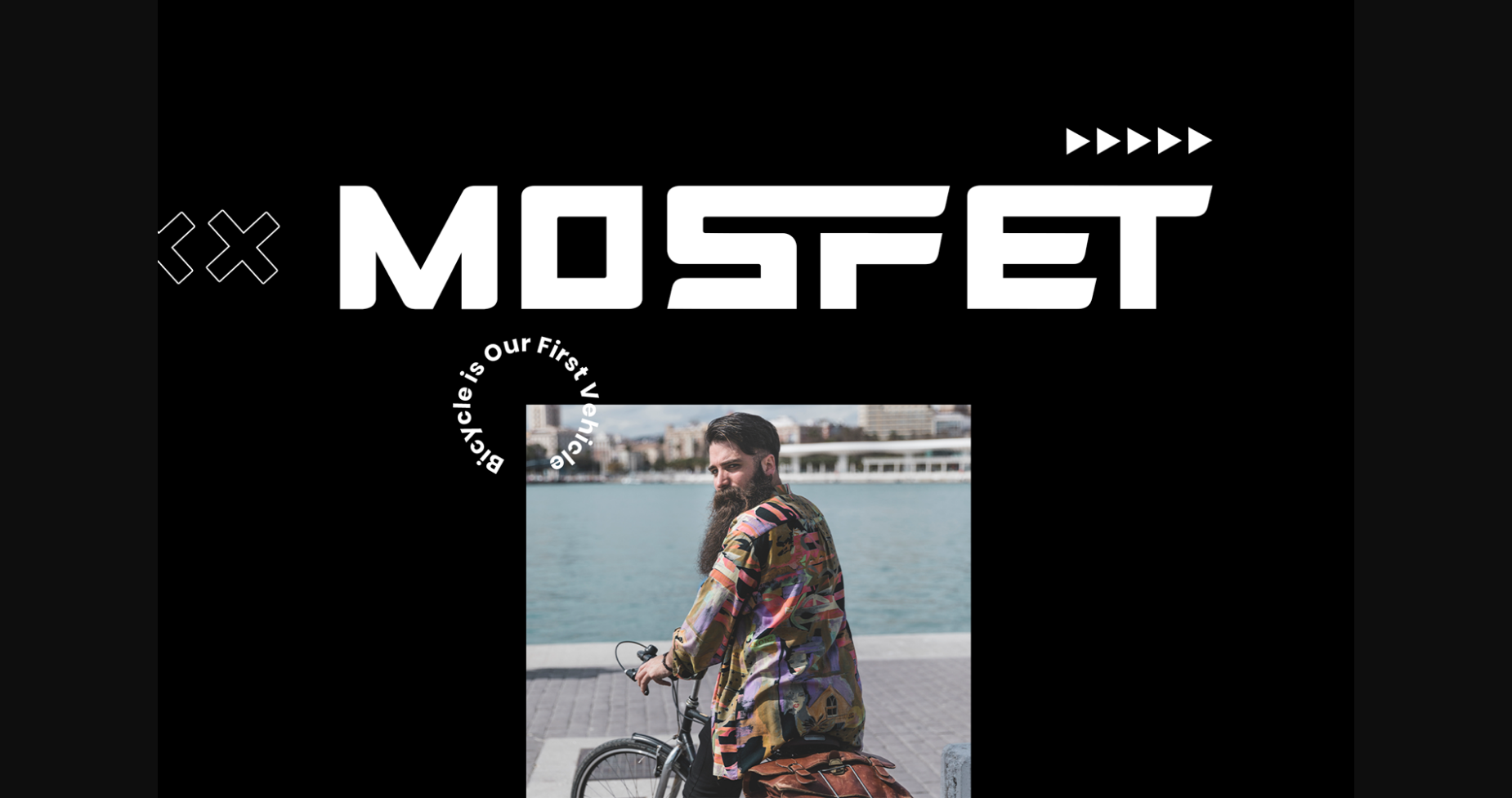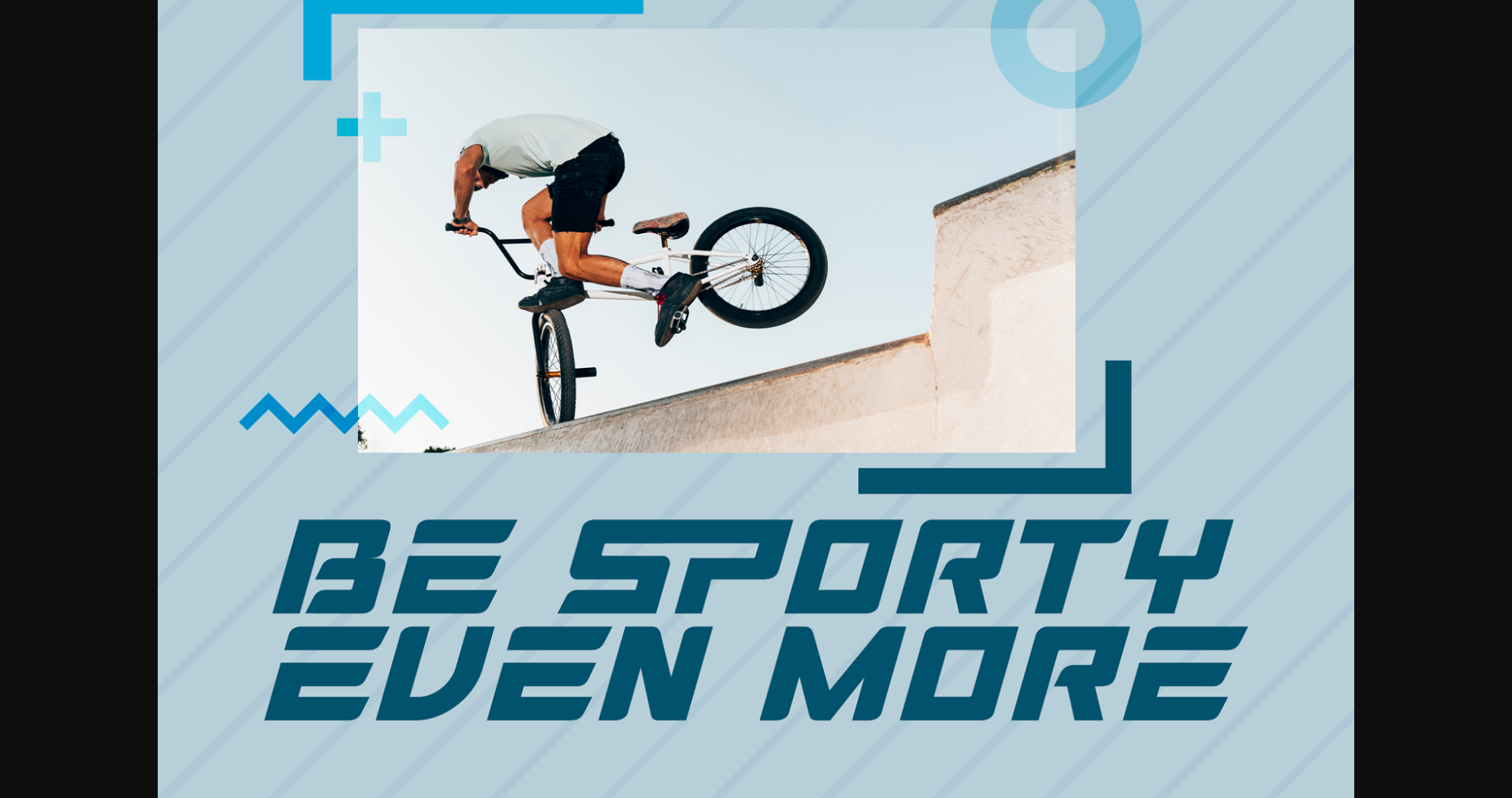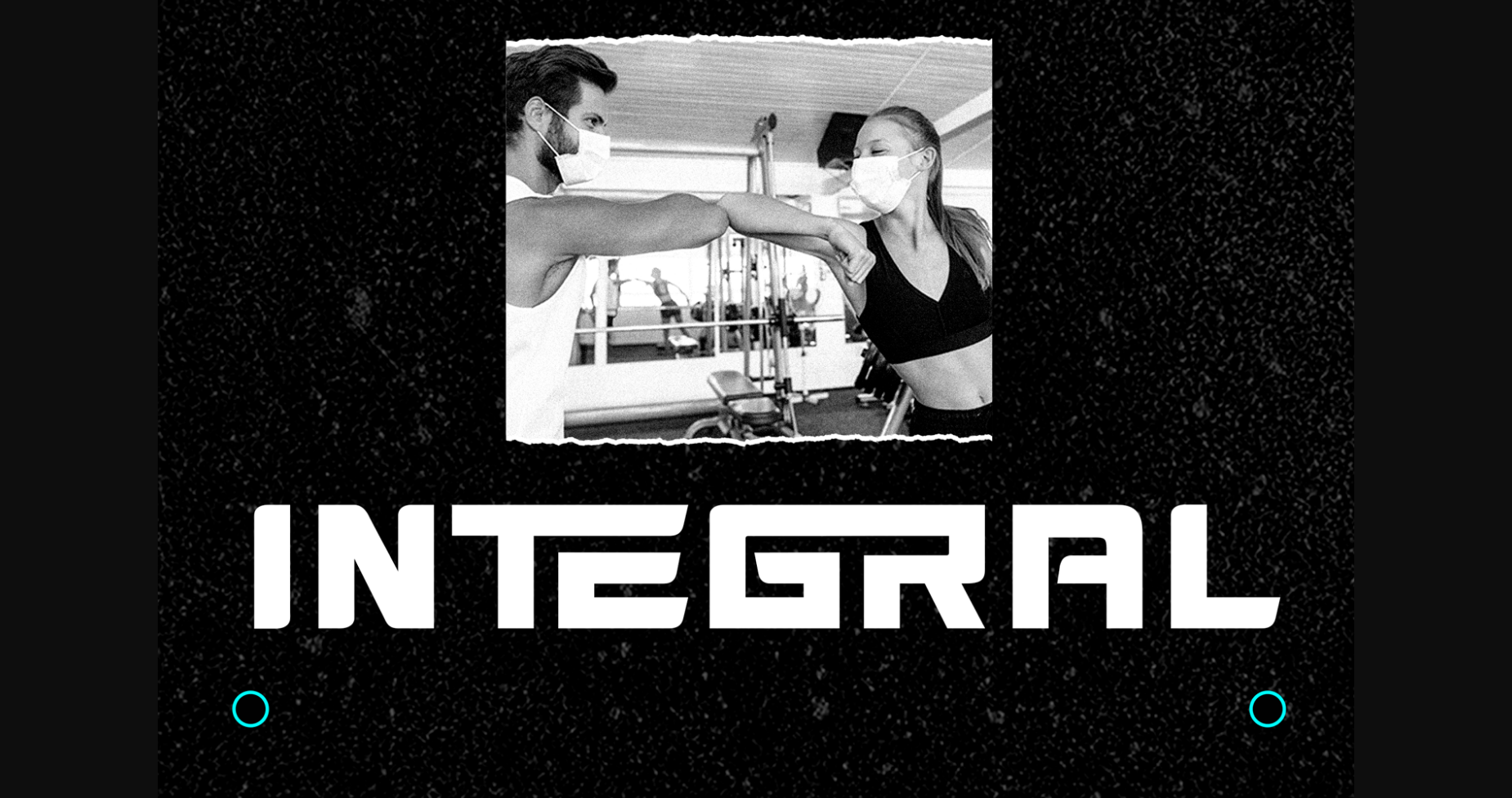
About Mosfet Font
Mosfet is a modern geometric sans serif font suitable for every graphic design or typography-related project. The slightly rounded corners of the letters will give an elegant and cool touch to your texts and quotes. Add it to your favorite creative projects, and be astounded by its effect.